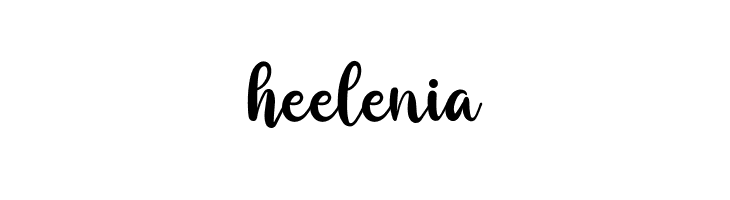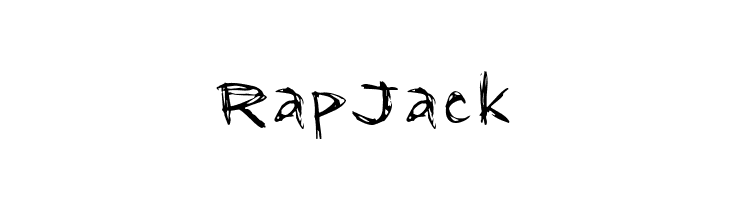
A dynamic, hand-drawn font with a rough, energetic style.
A lively and expressive handwritten font with dynamic strokes and playful loops.
An elegant script font with ornate flourishes and flowing, interconnected letters.
A vintage, handcrafted serif font with a distressed look.
A bold, blackletter font with a medieval, gothic style.
A futuristic, 3D, condensed italic font with bold outlines and geometric design.
A sleek, modern font with tall, narrow characters and a sophisticated style.
A cursive, handwritten-style font with elegant, flowing characters.
A sleek, futuristic font with geometric and dynamic design.
A bold, geometric font with intricate line patterns and a three-dimensional look.